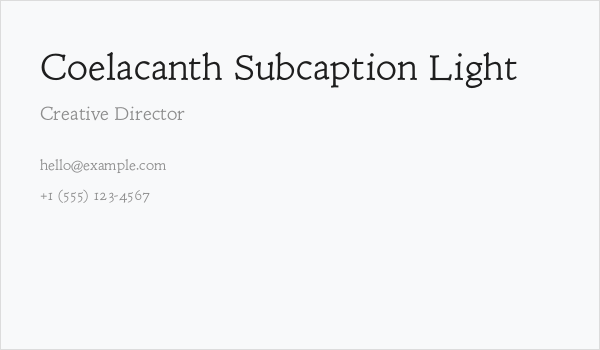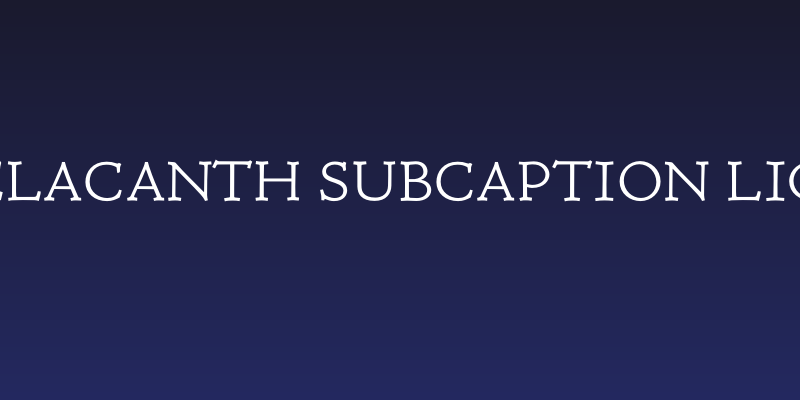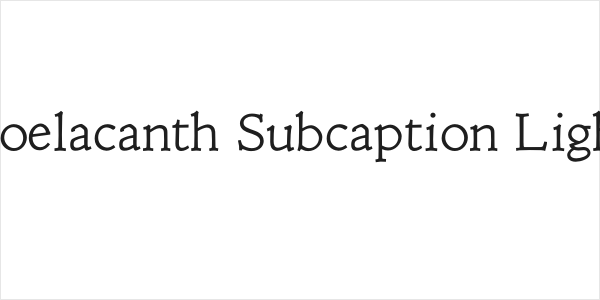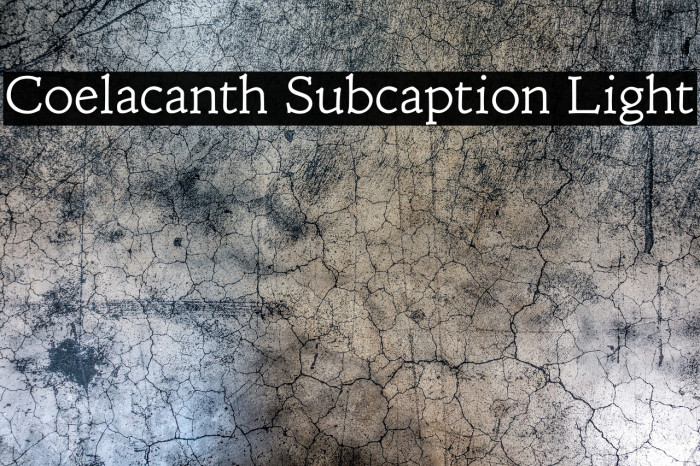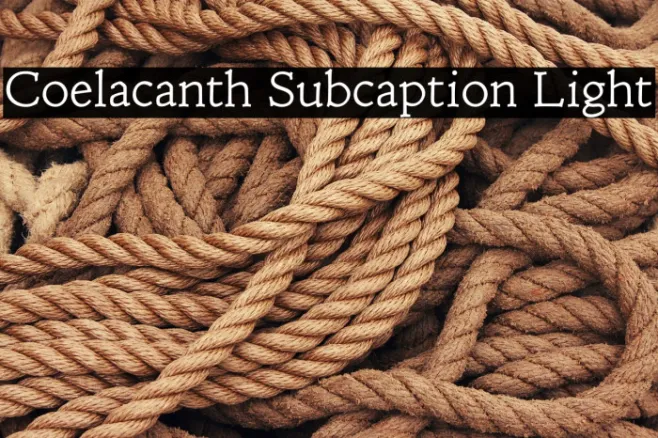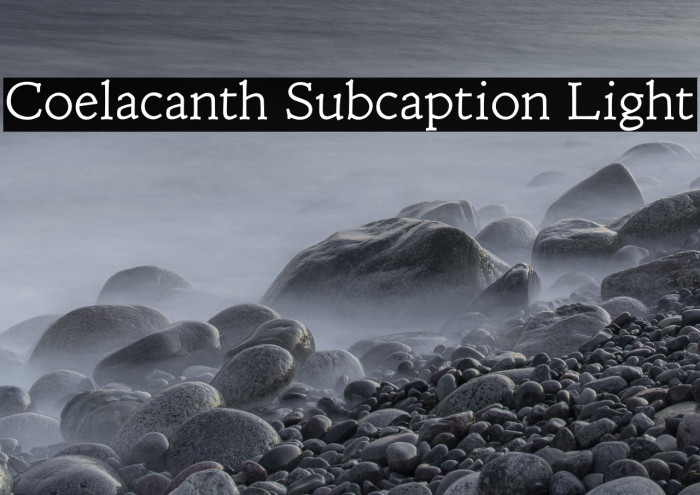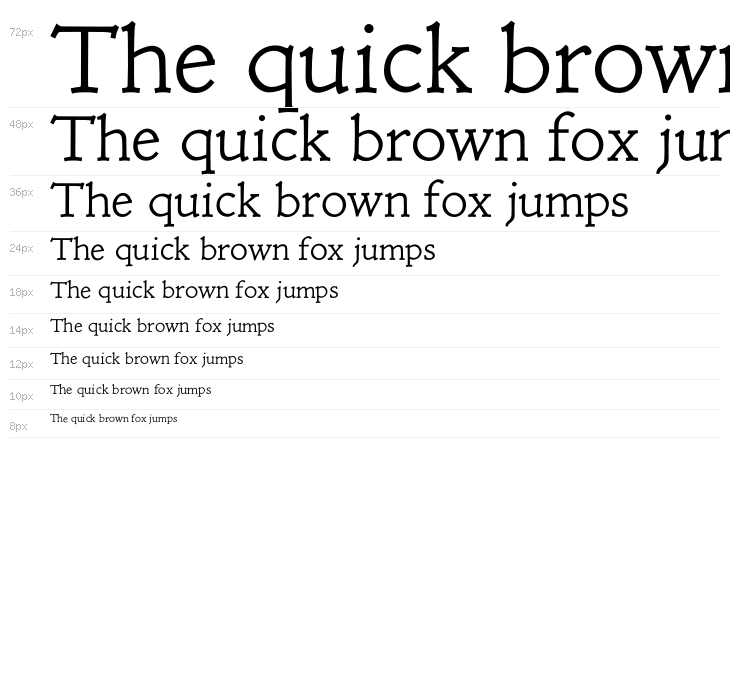
Coelacanth Subcaption Light Font
Coelacanth Subcaption Light Description
This font features a classic serif style with a light weight, offering a refined and elegant appearance. The characters have a slightly elongated form, providing a sophisticated and timeless look. The serifs are pronounced yet delicate, contributing to a sense of tradition and formality. The font maintains a consistent stroke width, ensuring readability and clarity across different sizes. Its overall design is well-suited for conveying a sense of professionalism and authority, making it ideal for formal documents and editorial content.
| Overall Style | Classic |
| Use Case | Body text, Editorial content, Formal documents |
| Proposed Projects | Ideal for use in formal documents, editorial content, book typesetting, and professional branding. |